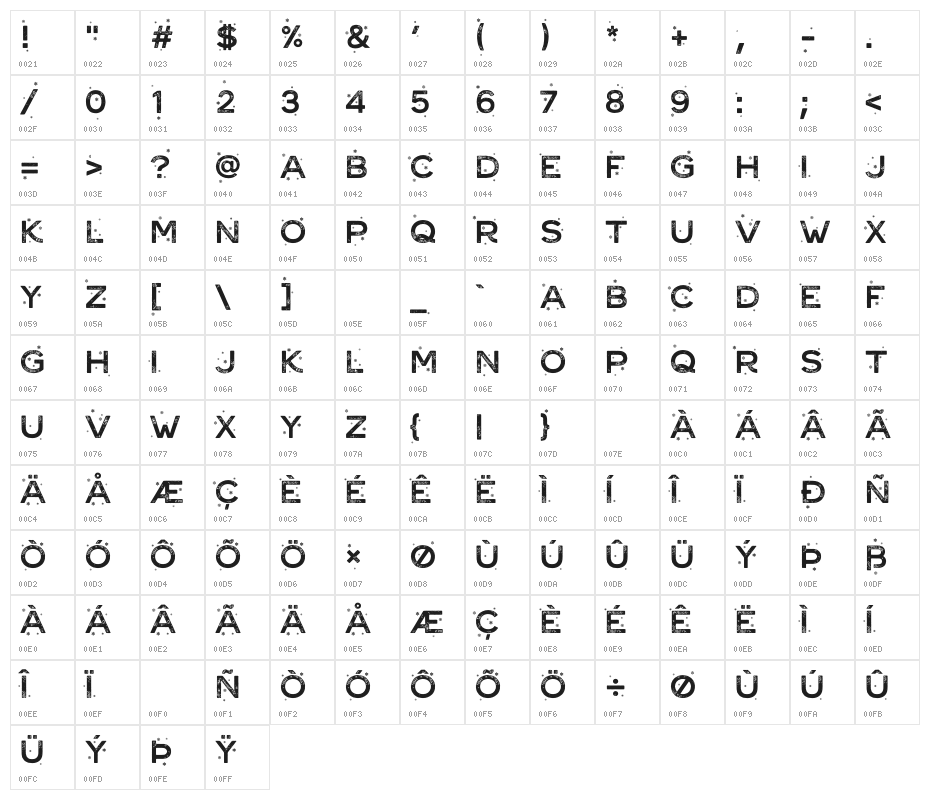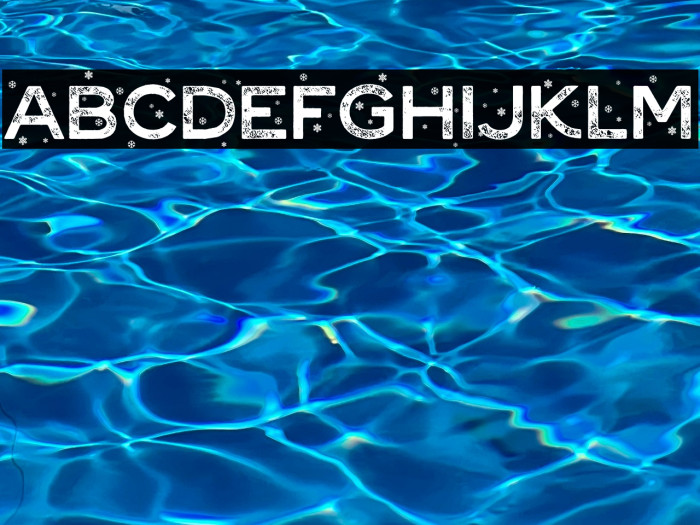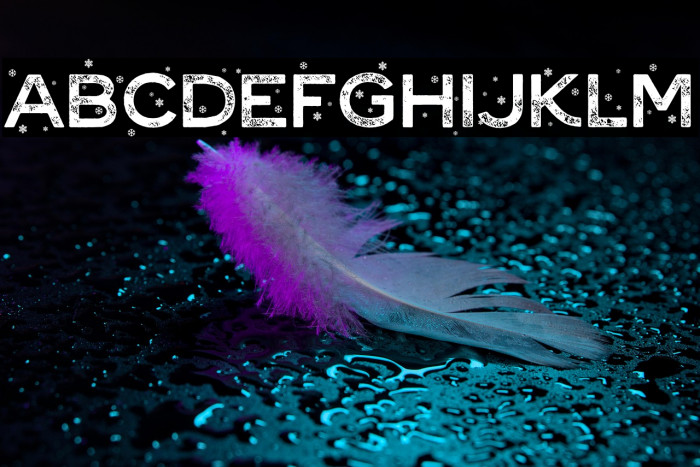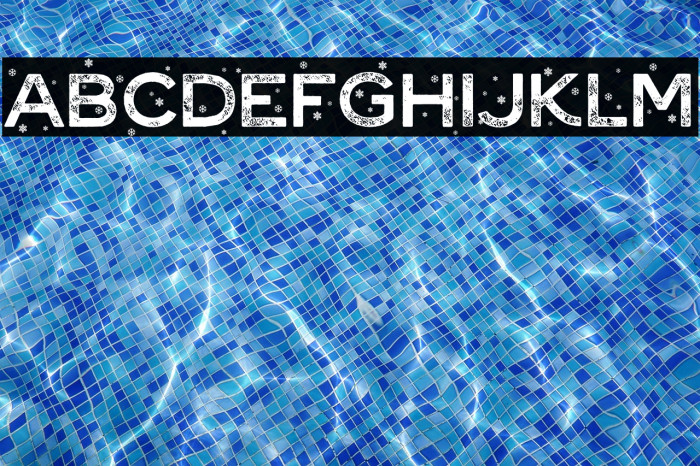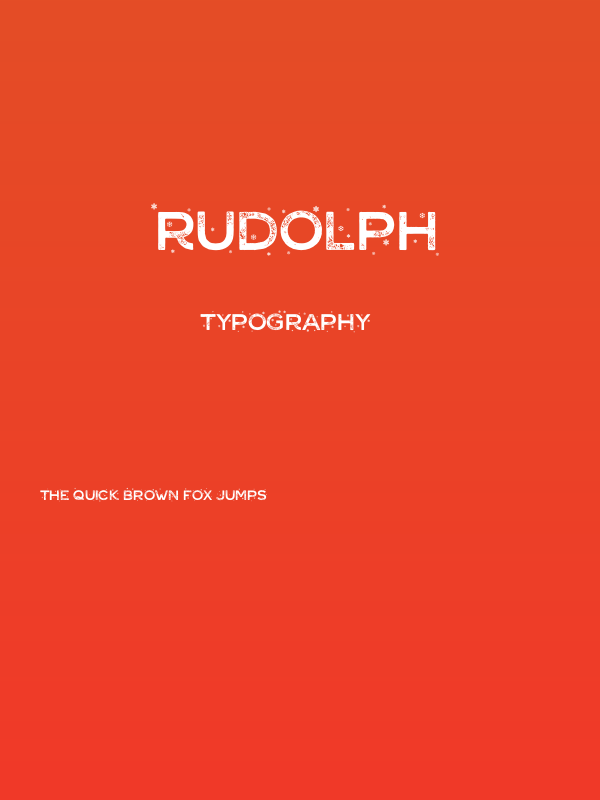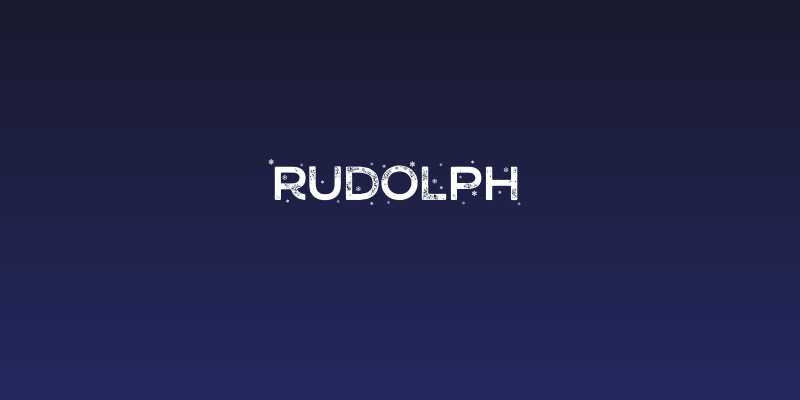
Rudolph Font
Rudolph Description
This font features a playful and festive design, incorporating snowflake patterns within the bold, uppercase and lowercase letters. The characters are solid and robust, with a decorative touch that evokes a winter or holiday theme. The snowflakes are scattered throughout each letter, adding a unique texture and visual interest. The numbers and special characters follow the same design, making the font cohesive and suitable for themed projects. Its boldness ensures readability while maintaining a whimsical and cheerful aesthetic.
| Proposed Projects | Ideal for holiday cards, festive banners, winter-themed posters, and seasonal branding. |